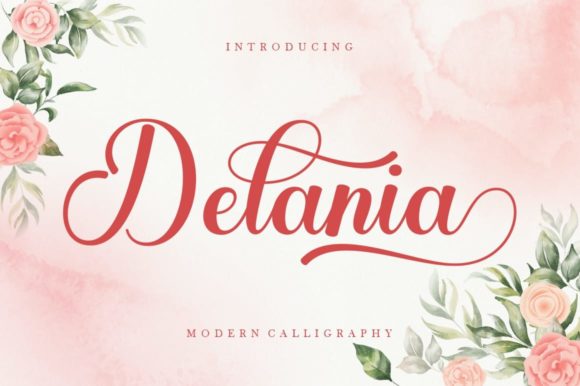
Step into the world of Delania Font, a captivating script font brimming with elegance and charm. Created by the talented artists at Stellar Studio, Delania is not just a font; it's an expression of creativity, a touch of sophistication, and a gateway to stunning designs that will leave you breathless.
With its graceful swashes and enchanting curves, Delania effortlessly adds a touch of magic to every letter, making your words dance with beauty. Whether you're crafting wedding invitations, greeting cards, or designing logos, Delania seamlessly blends elegance with a personal touch, leaving a lasting impression on all who behold it.
Imagine your wedding invitations adorned with Delania's delicate strokes, gracefully flowing across the page like a whisper of romance. Each letter, meticulously crafted, carries the weight of your love story, inviting your guests to share in the joy and elegance of your special day.
Picture a greeting card adorned with Delania's enchanting characters, carrying heartfelt messages of love, friendship, or gratitude. The intricate details and artistic flair of Delania transform ordinary words into heartfelt expressions, making every card a cherished keepsake.
Delve into the realm of logo design and let Delania's charm work its magic. Create logos that exude sophistication and timeless appeal, leaving an indelible mark on your brand's identity. Delania's versatility knows no bounds, adapting seamlessly to a diverse range of design styles, from classic and traditional to modern and whimsical.
Unleash your creativity and explore the boundless possibilities that await with Delania Font. Transform your designs into works of art, captivate your audience with the allure of every letter, and create a visual experience that resonates with beauty and elegance. Embrace the Delania experience and elevate your designs to new heights of excellence.